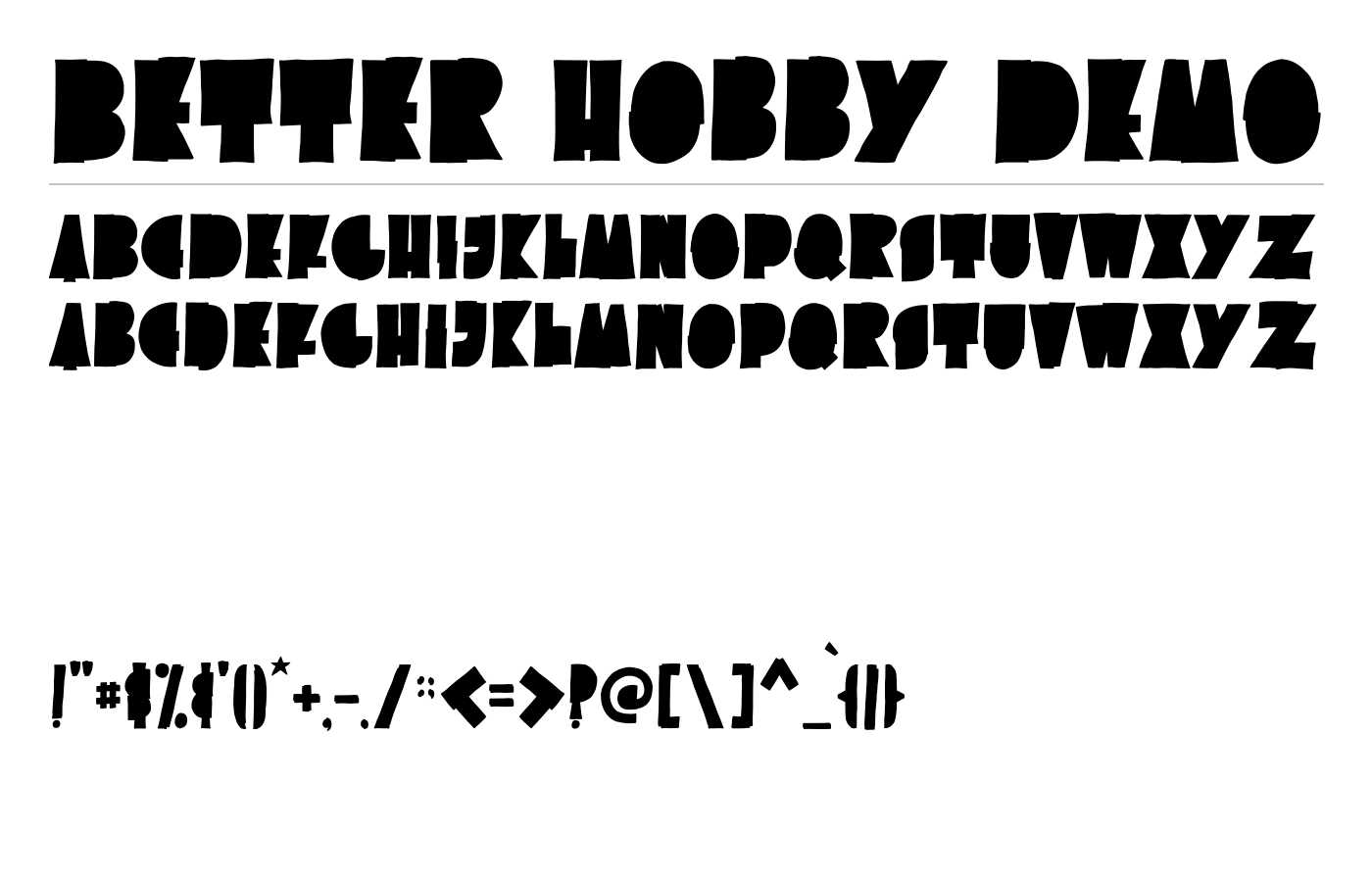
Better Hobby DEMO is a bold, playful display font characterized by its heavy weight and exaggerated geometric shapes. Its chunky, irregular letterforms evoke a fun and informal vibe, making it ideal for eye-catching headlines, posters, and creative branding where a quirky, artistic touch is desired. This font’s strong presence and unique style work best in settings that welcome personality and visual impact over readability in long text.
Better Hobby DEMO Font
About Better Hobby DEMO Font
| Font family | Better Hobby DEMO Font |